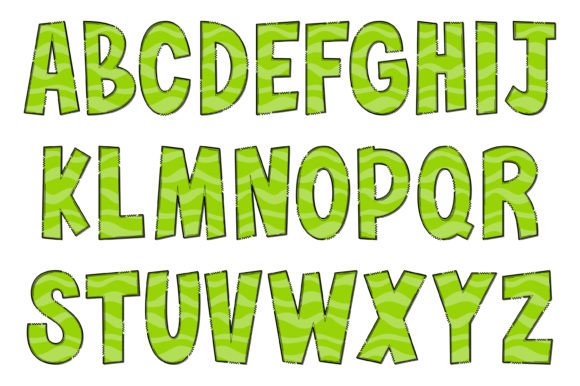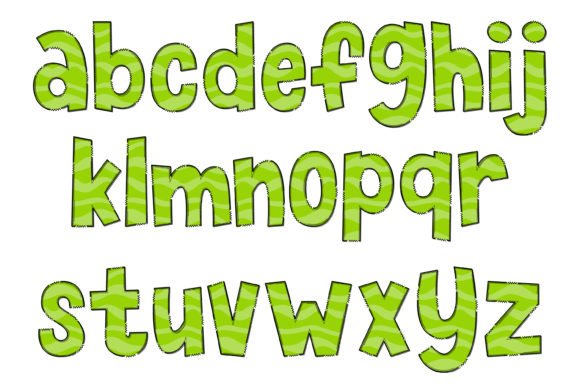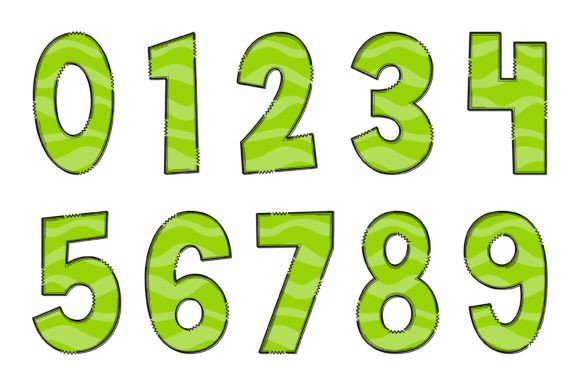
The Magic of Green Smoke Font: A Designer’s Delight
I’ll never forget the time I was working on a children’s book project, and my client asked me to create a custom font that would make the story come alive. I spent hours scouring the internet for the perfect font, but nothing seemed quite right. That’s when I stumbled upon the Green Smoke Font. Its playful, whimsical vibe was exactly what I needed to bring the story to life. In this article, I’ll share my experience with this amazing font, its features, and how to make the most of it in your designs.
- ✨ The Green Smoke Font is a color font (Opentype-SVG), which means it offers a wide range of creative possibilities.
- 🎨 The font’s playful, artistic feel makes it perfect for designs that require a touch of whimsy, such as children’s books, posters, invitations, and greeting cards.
The Backstory of Green Smoke Font
The Green Smoke Font was created by a talented type designer who’s passionate about creating unique, creative fonts that inspire designers and hobbyists alike. The font’s playful, whimsical vibe is inspired by the designer’s love of children’s books and playful illustration.
| Font Name | Green Smoke Font |
| Author | Imagination Switch |